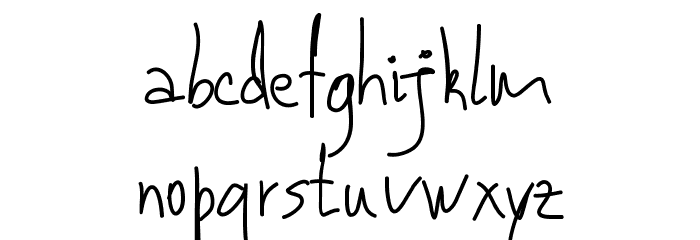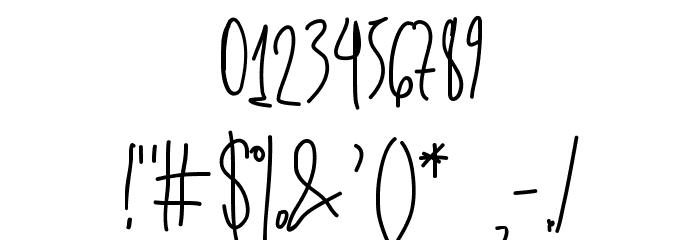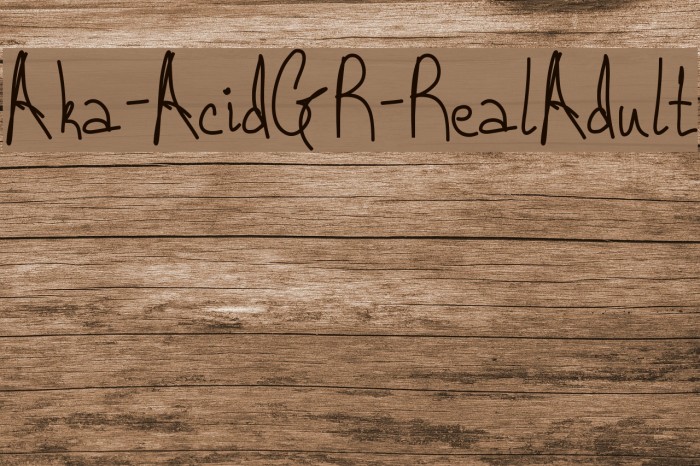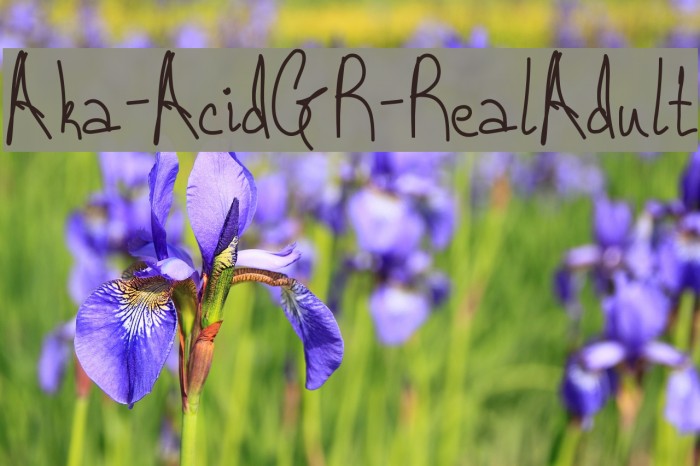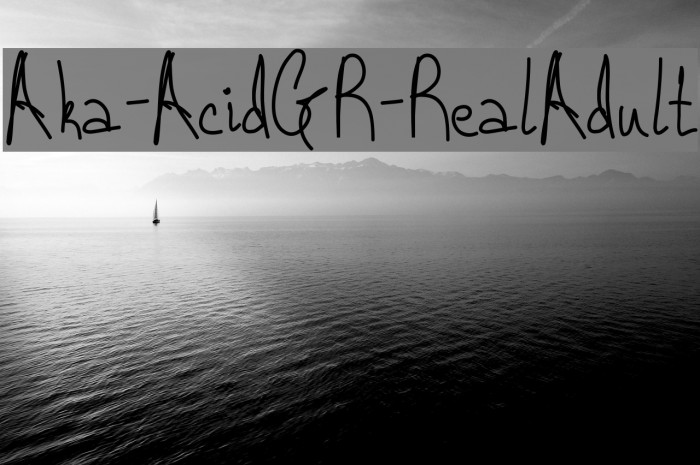
Aka-AcidGR-RealAdult Font
This font exhibits a playful and casual handwritten style, characterized by its irregular and slightly whimsical strokes. The letters vary in height and width, giving it a dynamic and lively appearance. The uppercase letters are tall and slender, while the lowercase letters maintain a consistent flow with a slightly uneven baseline. Numbers and special characters follow the same informal style, adding to the font's overall charm. The strokes are thin, with low contrast between thick and thin parts, enhancing its informal and approachable feel.
A playful, casual handwritten font with irregular strokes and low contrast.
- Proposed Projects: Ideal for personal projects, children's books, greeting cards, and informal branding.
- Category: Handwritten
- Overall Style: Casual
- Use Case: Greeting cards, Informal branding, Personal projects